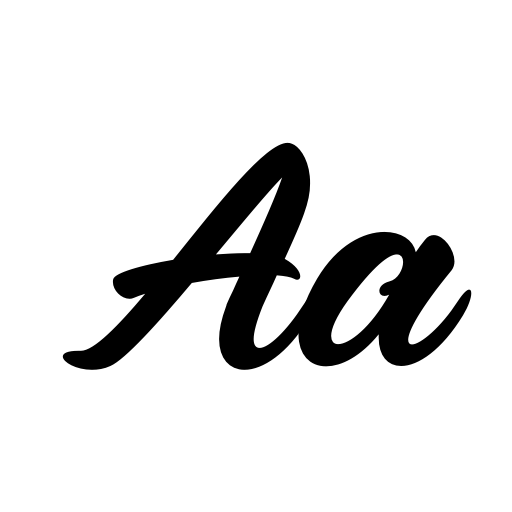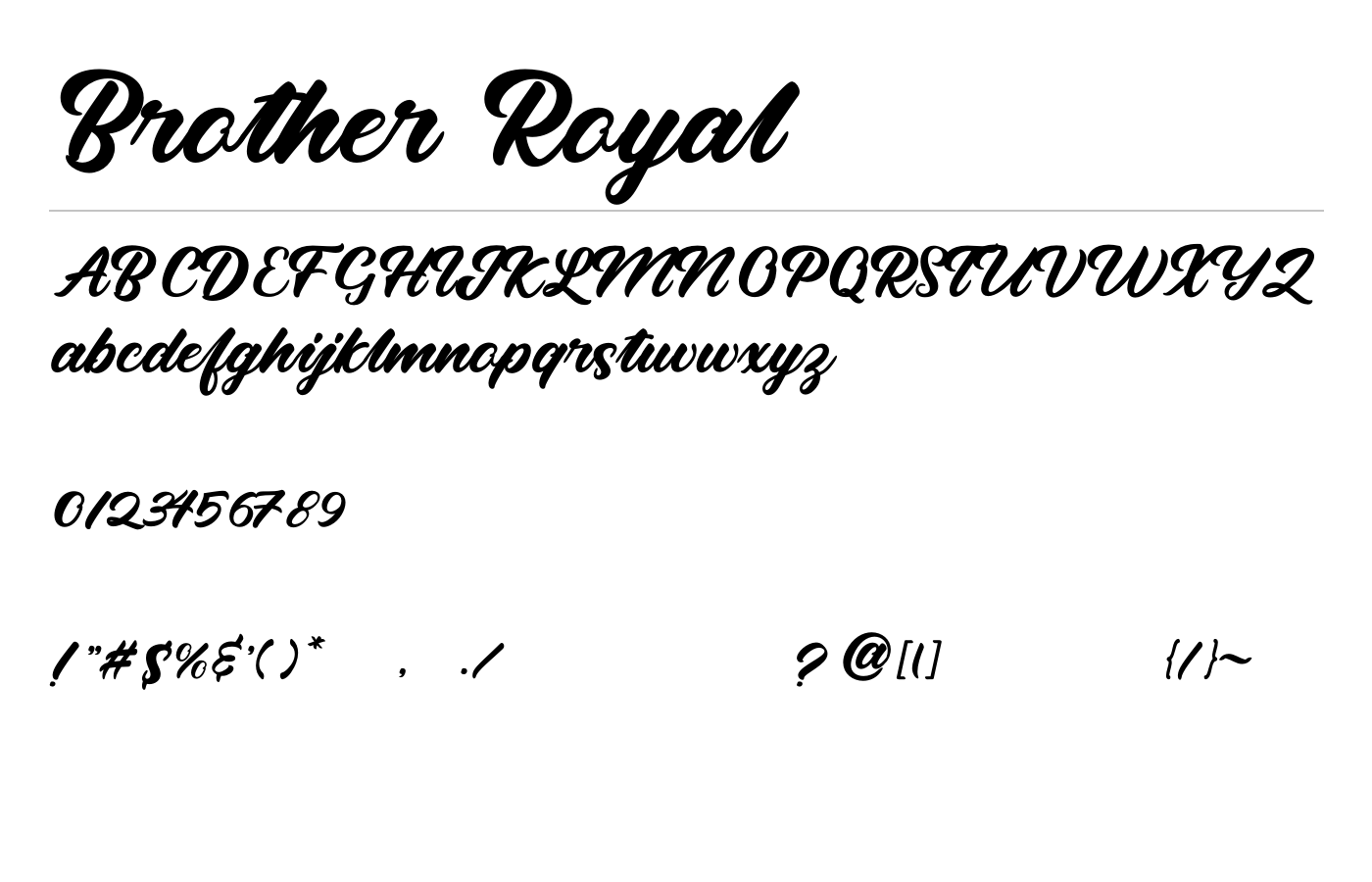
Brother Royal is a bold and elegant script font with smooth, flowing strokes that evoke a classic, handwritten feel. Its slightly condensed letterforms and balanced contrast make it perfect for luxury branding, invitations, and stylish logos, lending a sophisticated yet approachable personality to any design. This font works beautifully in headlines and decorative text where a touch of charm and refinement is desired.
Brother Royal Font
About Brother Royal Font
| Font family | Brother Royal Font |